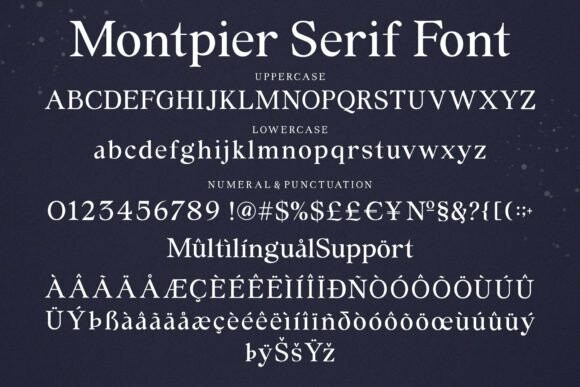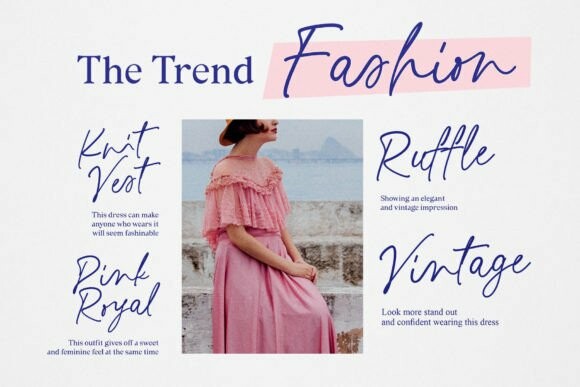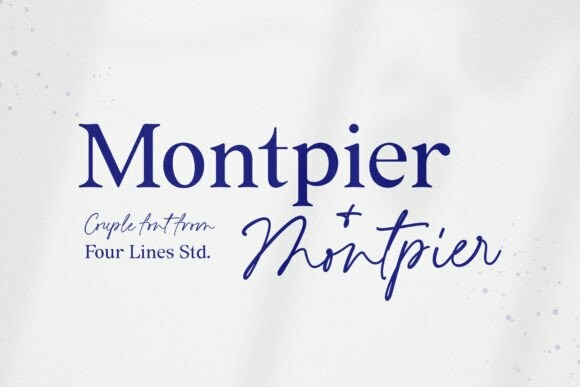
Montpier Font Duo
Montpier Font Duo is an elegant font duo consisting of a signature script and a complementary serif, harmoniously crafted to seamlessly integrate into your upcoming design projects. This font duo boasts OpenType features, including ligatures, alternates, numerals, punctuation and multilingual support, enhancing its versatility and usability in a variety of design contexts.